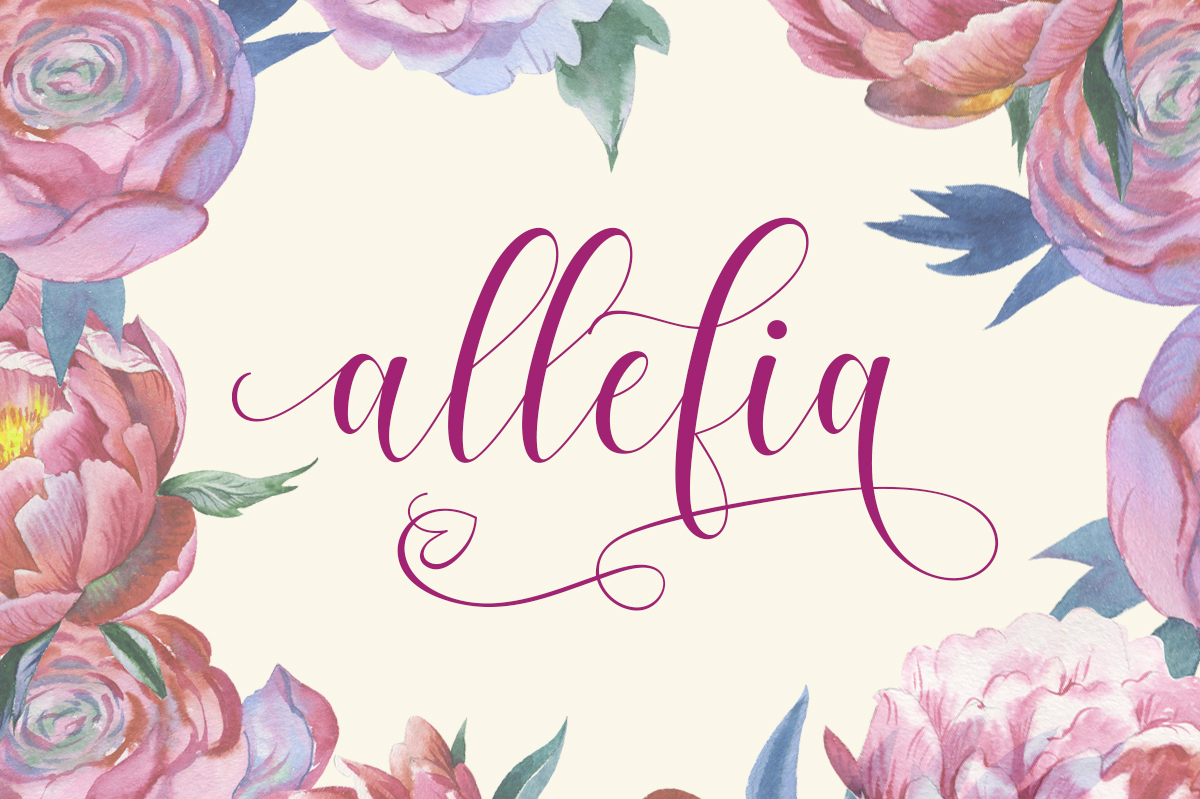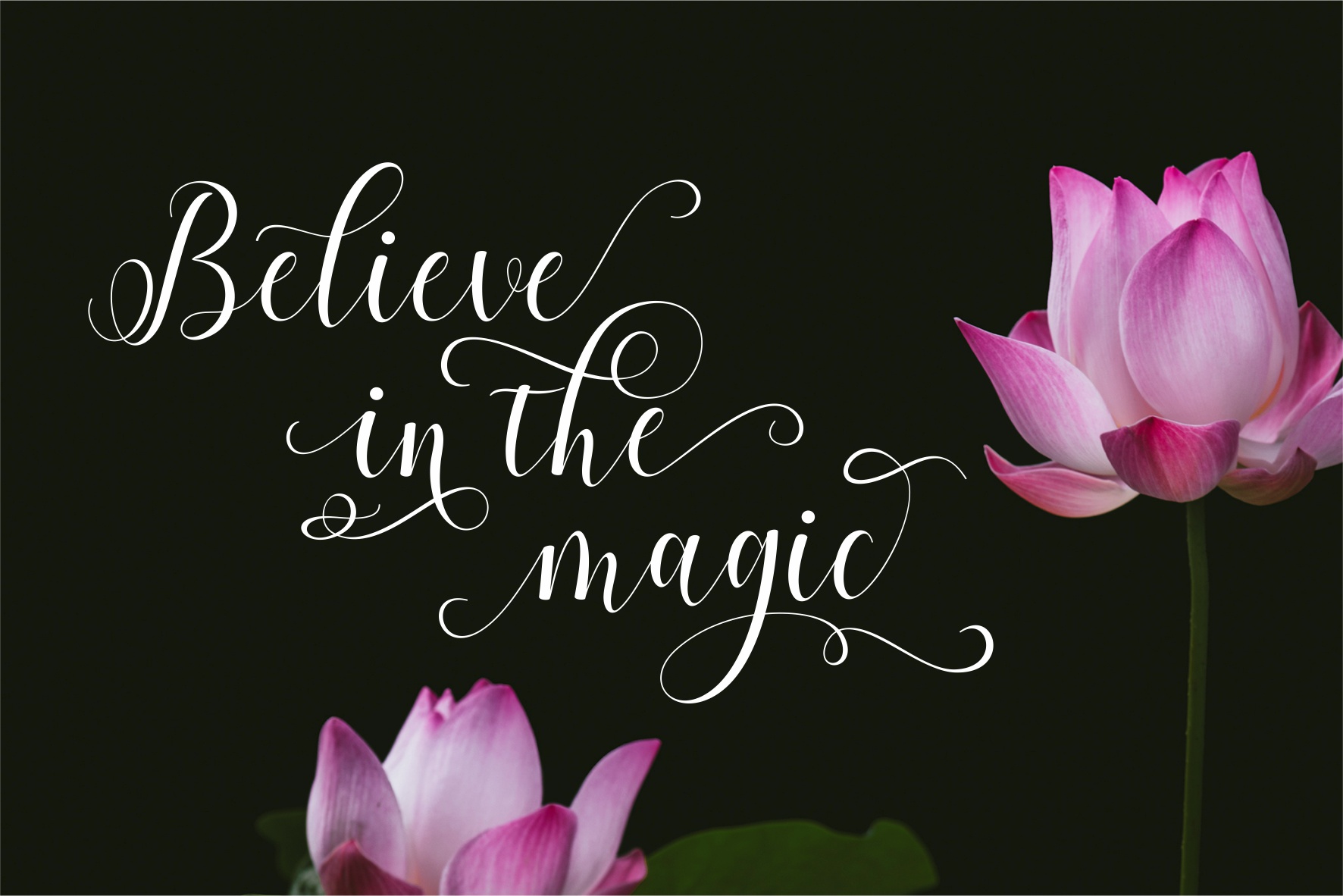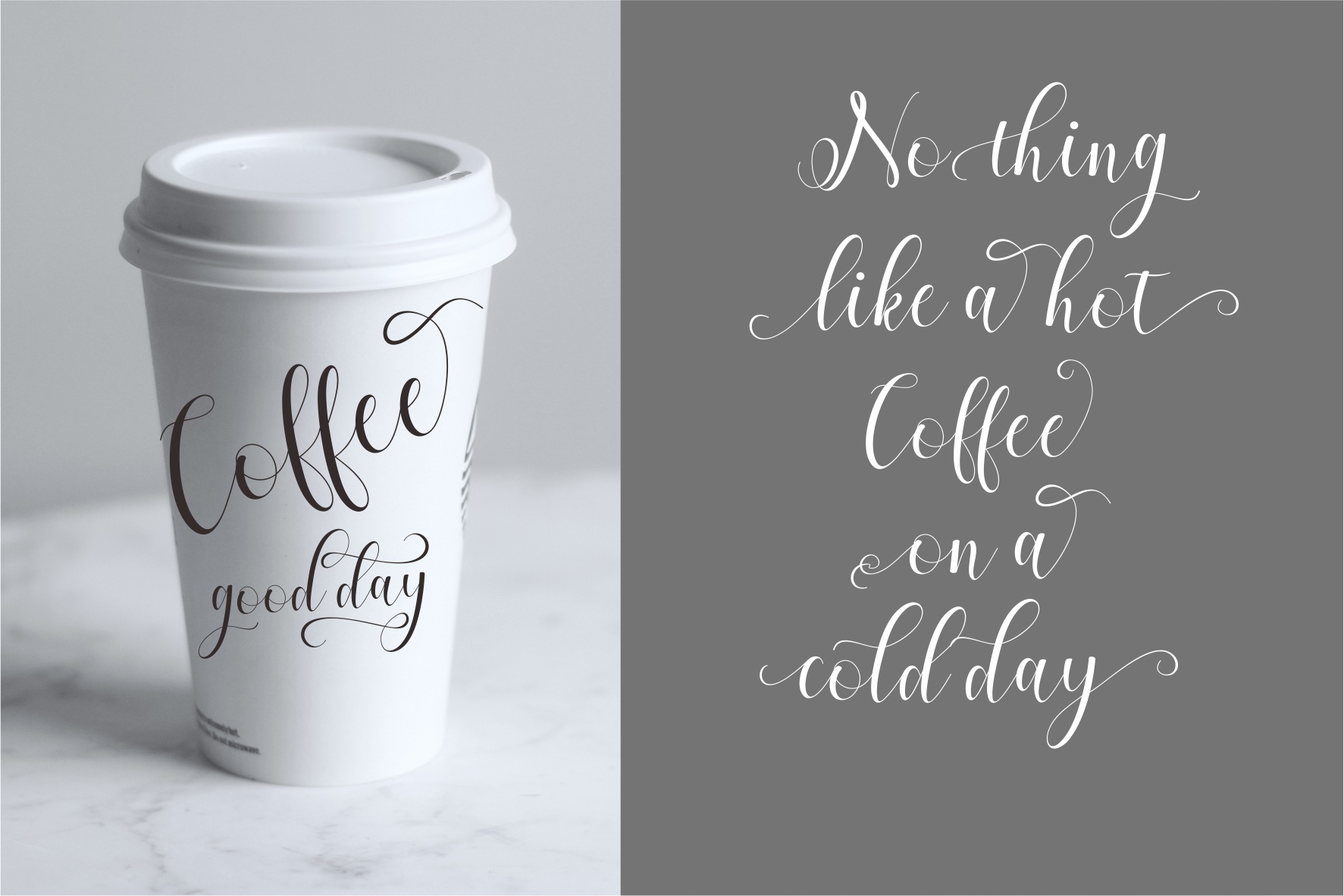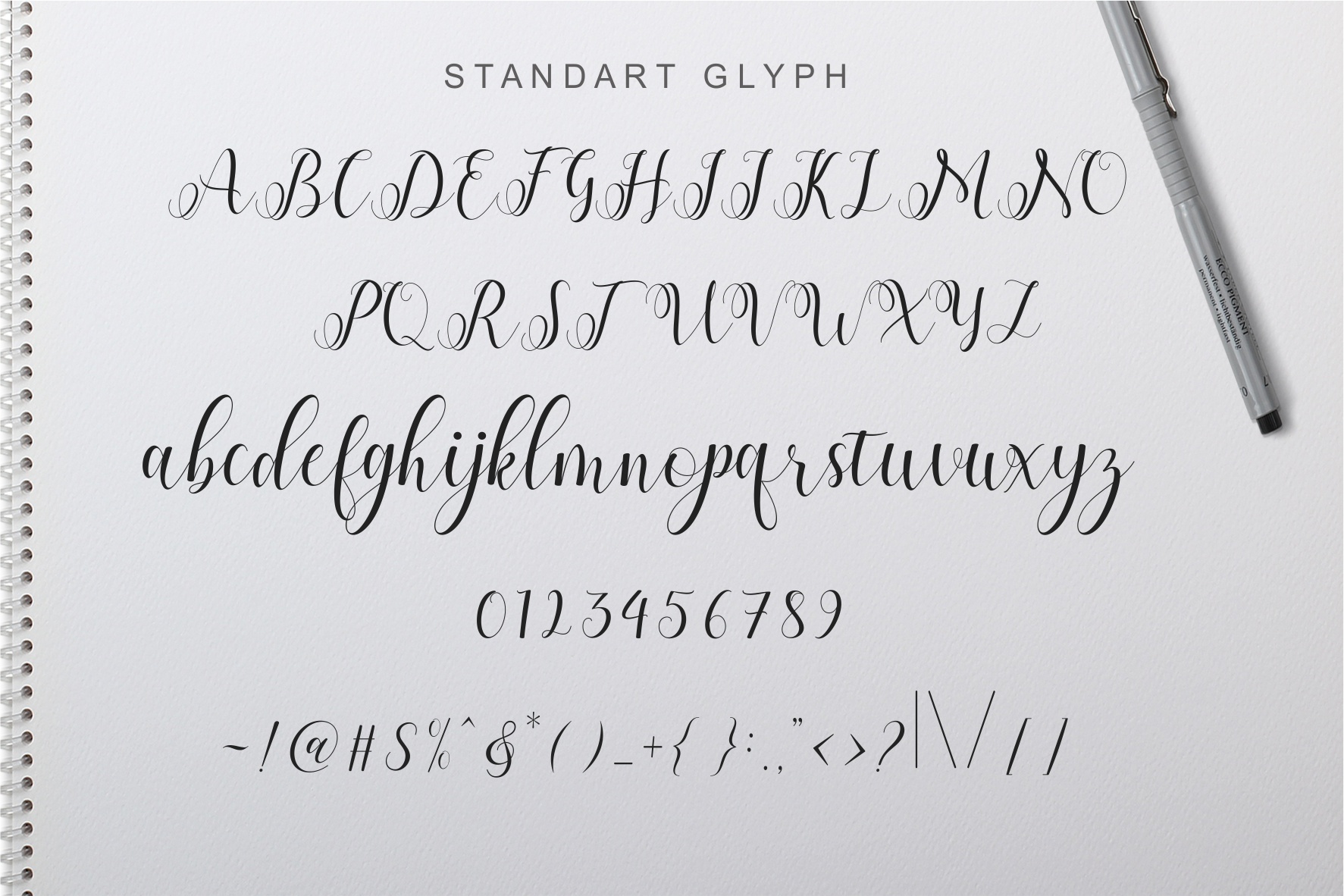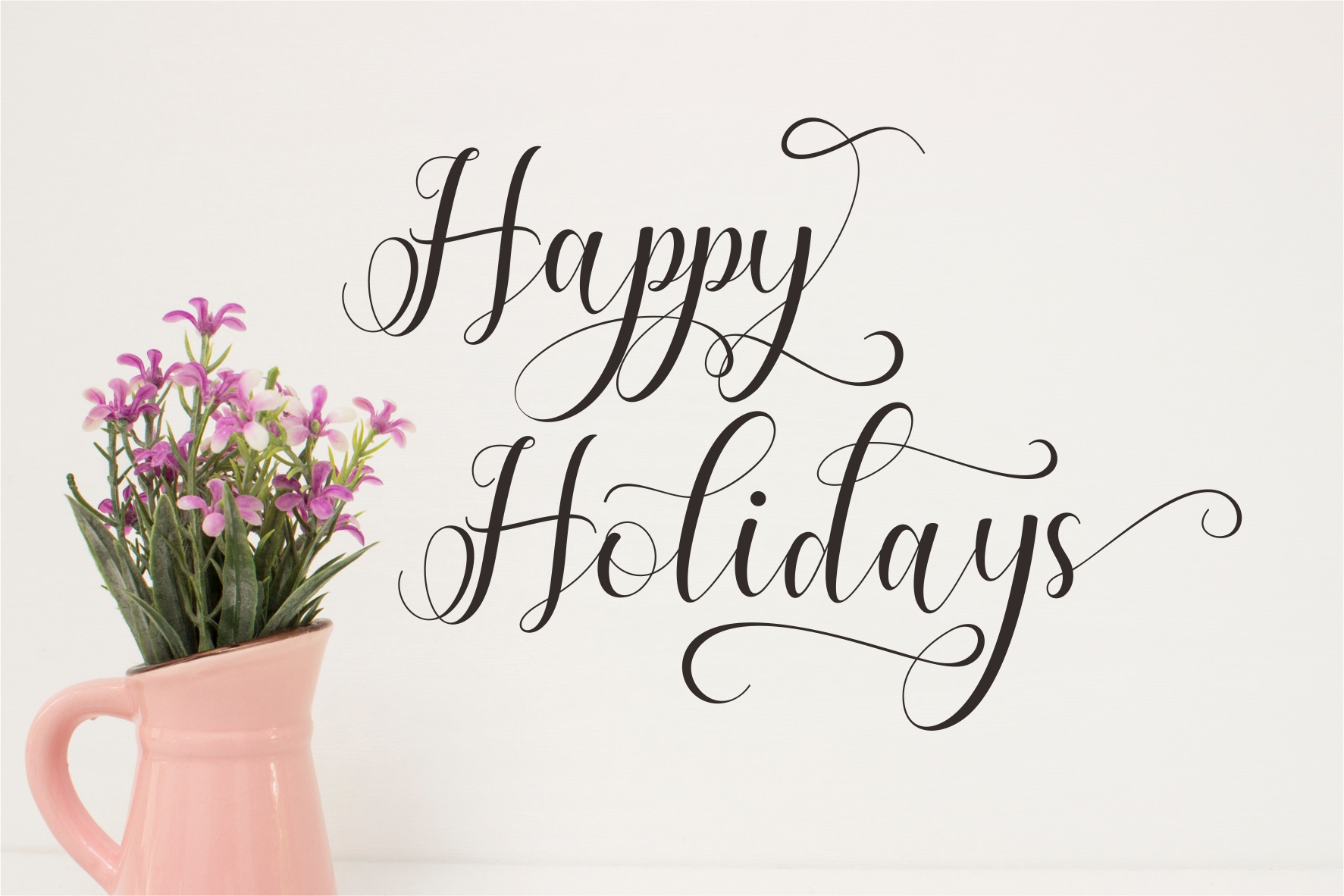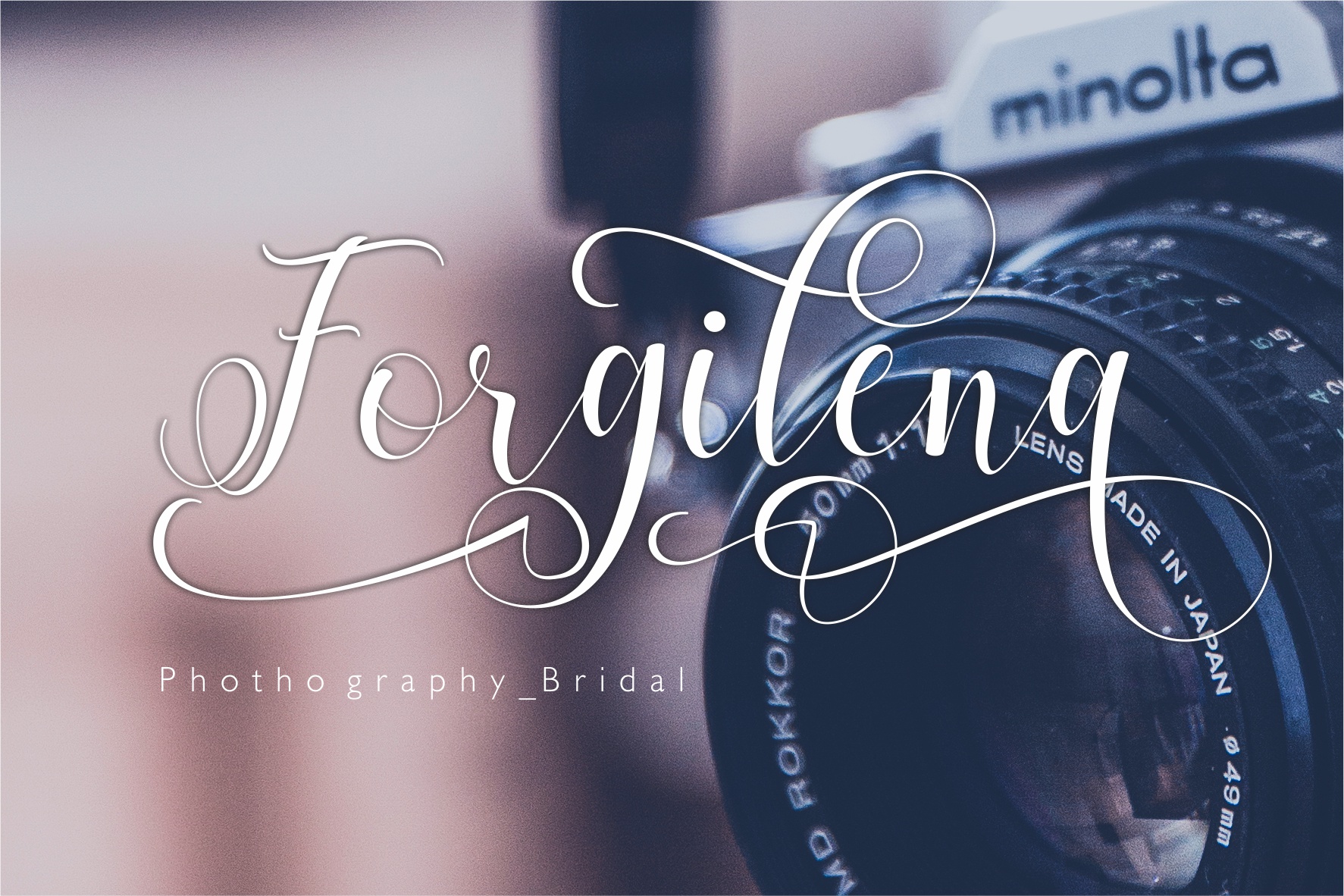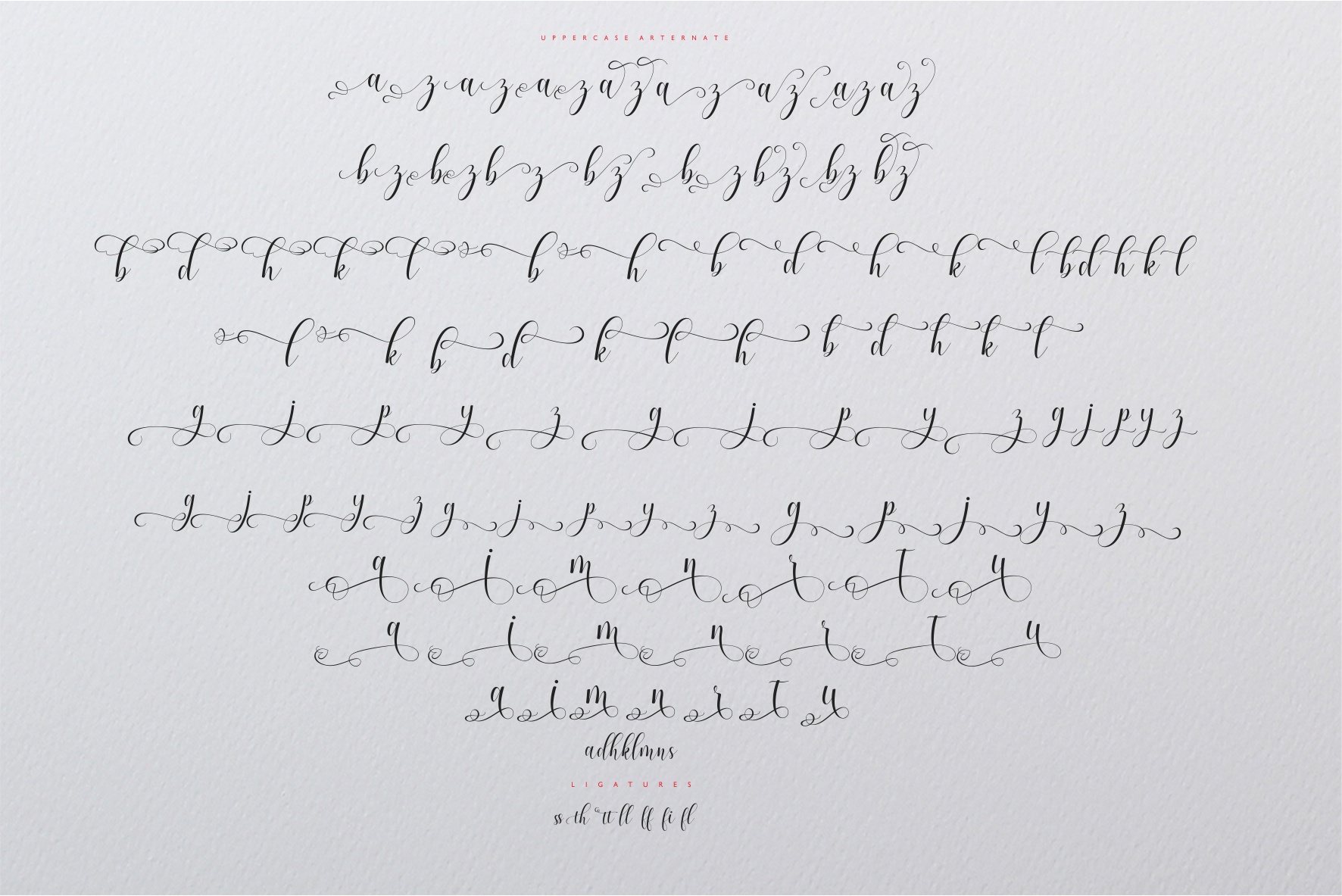
Allefia Font
About Allefia Font
Allefia Script is a modern calligraphy font with over 540 gorgeous glyphs for optimal uniqueness of design. This is a thin and flourished font, perfect for a large number of femine, elegant, or romantic projects.